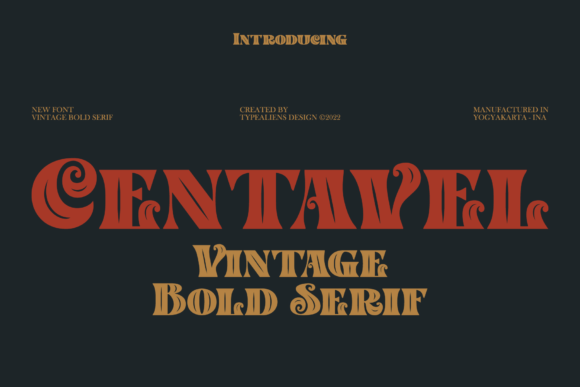
Enter the world of Centavel, a display font that captivates with its vintage charm and bold persona. Crafted by the skilled hands at Typealiens, Centavel is not just a font; it's an experience.
With its strong and unique character, Centavel elevates every design, transforming ordinary words into captivating statements. Embrace the limitless potential of Centavel and watch your creations come alive with a touch of timeless elegance.
Centavel is the perfect choice for those seeking to make a lasting impression. Its bold and attention-grabbing nature ensures that your designs stand out from the crowd. Unleash your creativity and explore the endless possibilities of Centavel.
Step into a world of retro charm and modern sophistication with Centavel. Its versatility knows no bounds, making it ideal for logos, posters, branding, social media graphics, and more. Let Centavel be your secret weapon to captivate audiences and leave an unforgettable mark.